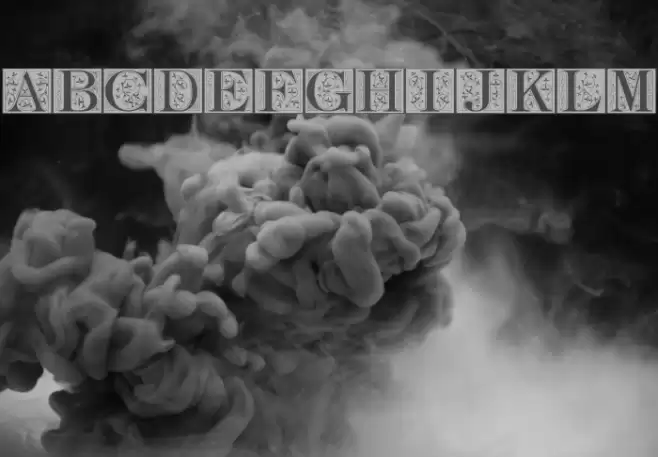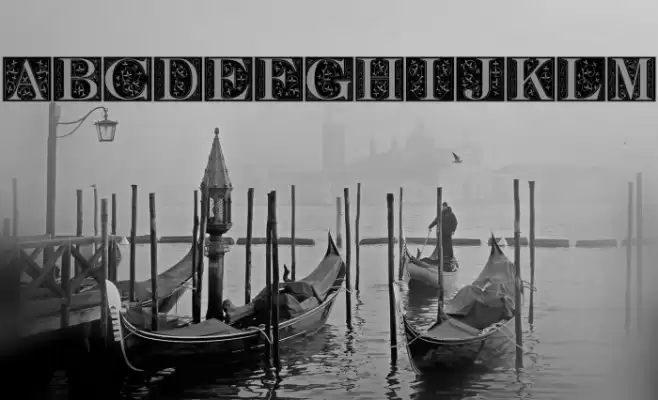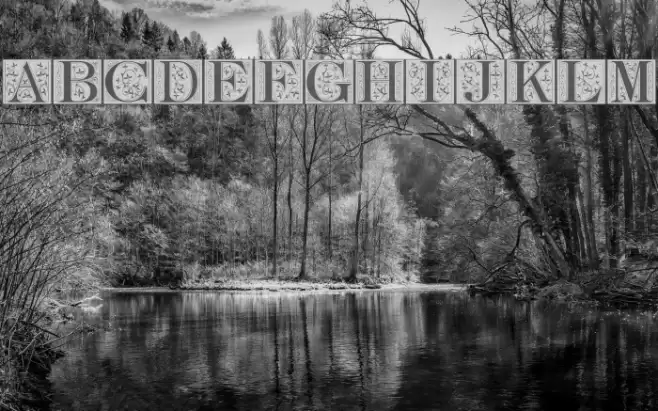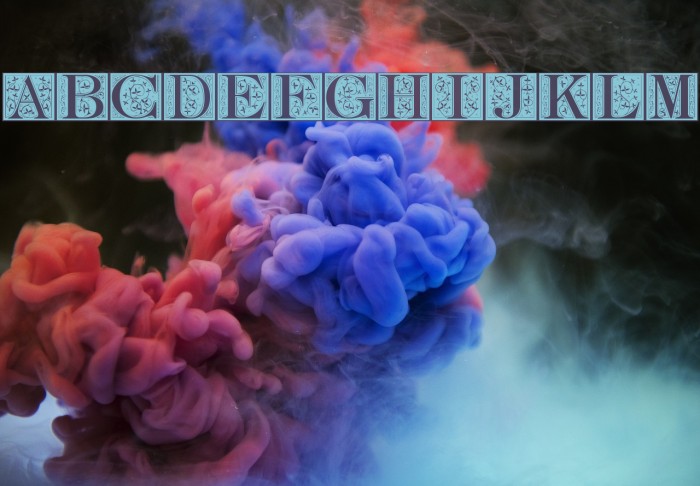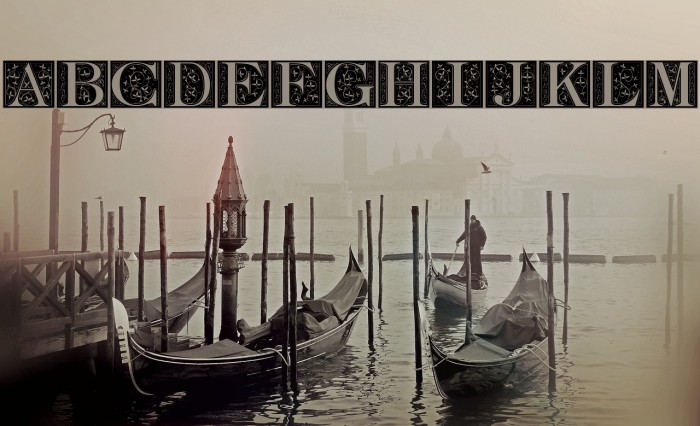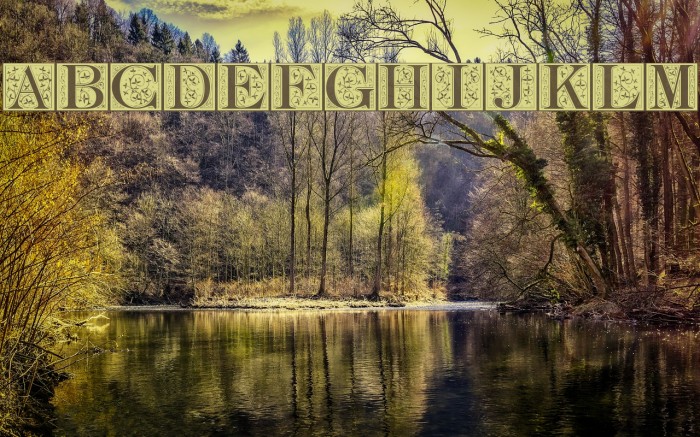
FleurCornerCaps Font
FleurCornerCaps Description
This decorative font features ornate floral designs within each uppercase letter, creating an intricate and elegant appearance. The letters are enclosed in square frames, enhancing their decorative nature and giving them a distinct, ornamental look. The intricate detailing within each character makes this font highly decorative and suitable for special occasions or artistic projects. The absence of lowercase letters and numbers suggests a focus on decorative use rather than practical text applications.
An ornate decorative font with floral designs in uppercase letters from Typewriter fonts.
- Proposed Projects: Ideal for wedding invitations, greeting cards, decorative posters, and artistic projects requiring a touch of elegance.